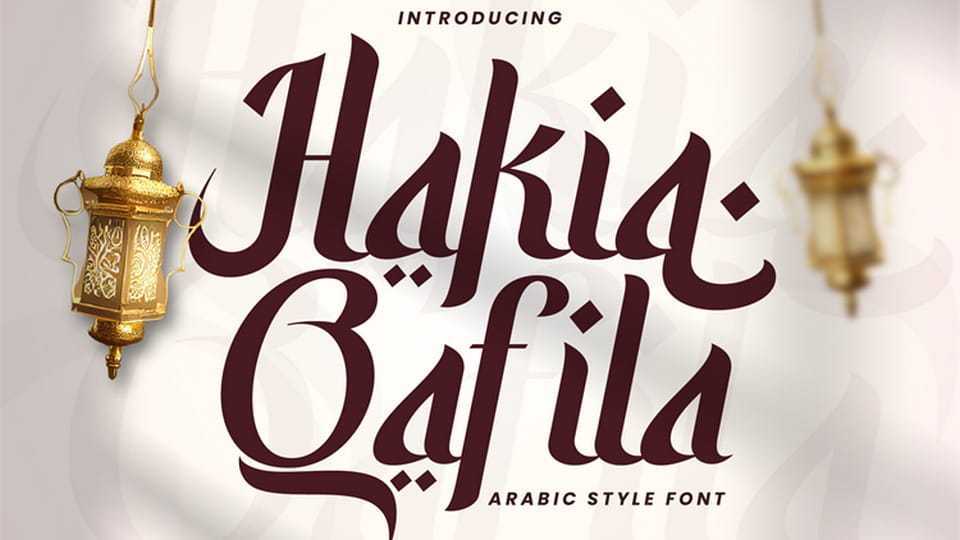
Download Hakia Qafila font, inspired by the spirit of a qafil, a caravan traveling across cities, cultures, and centuries. This typeface carries the rhythm of journeys once written in ink, stone, and tradition.
Designer: Rvandtype Studio